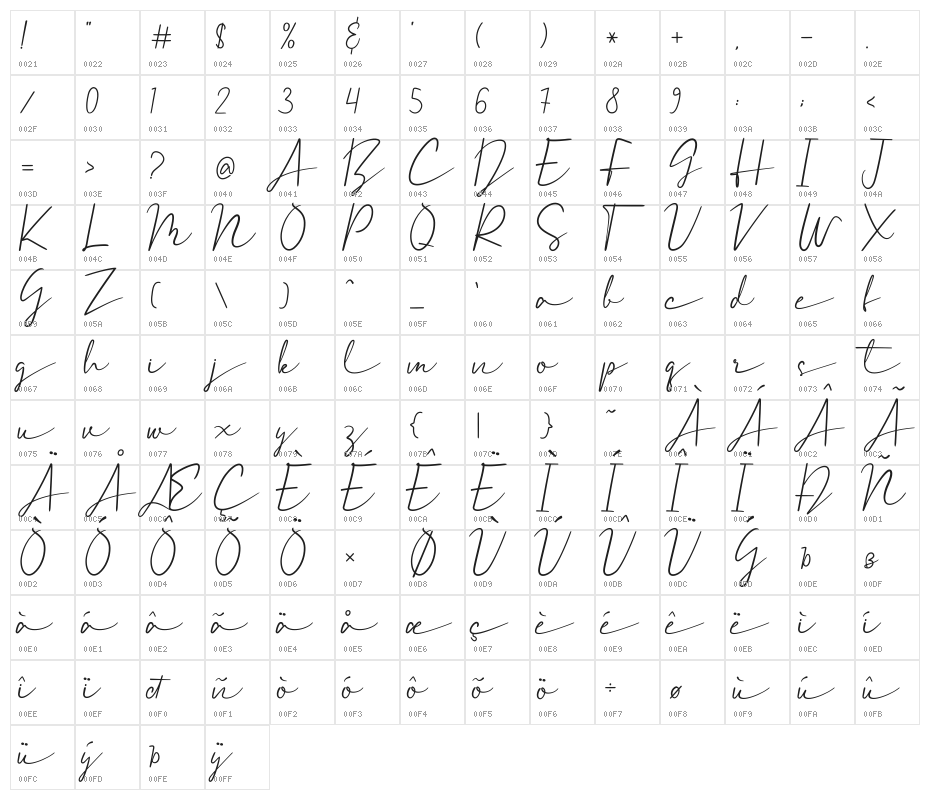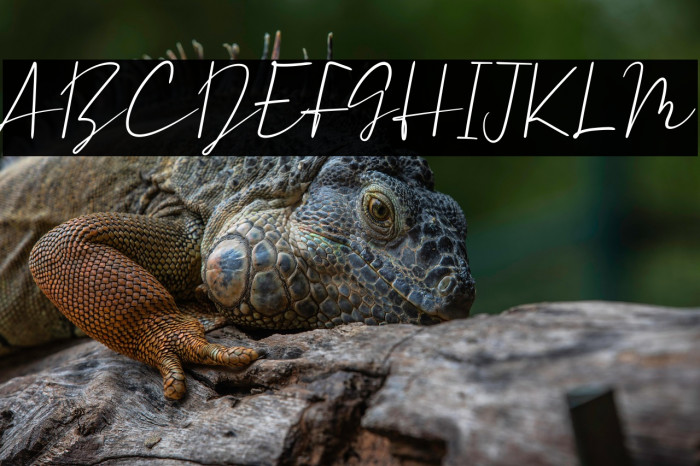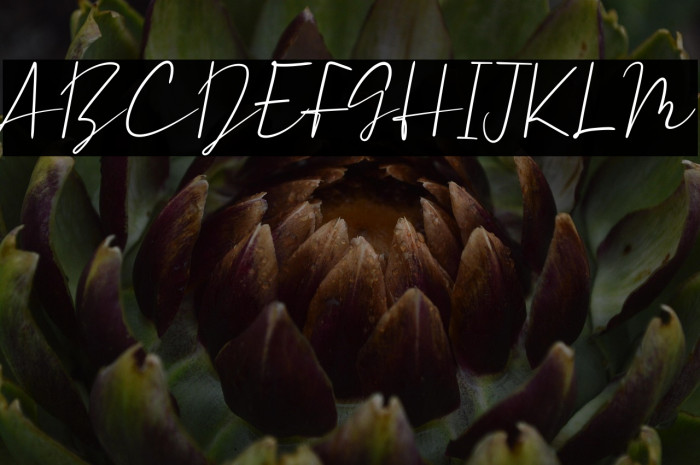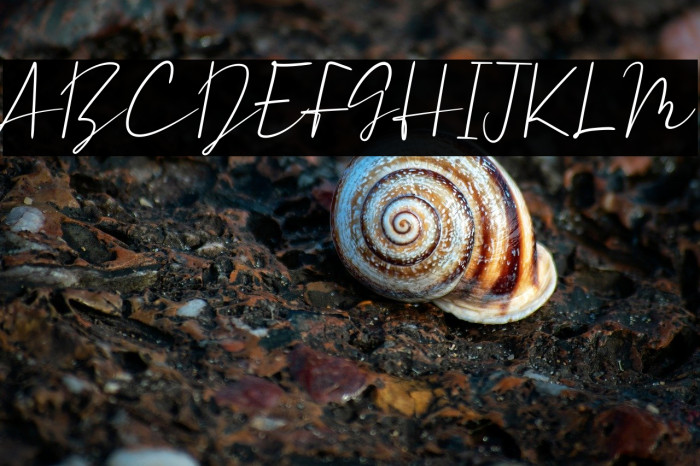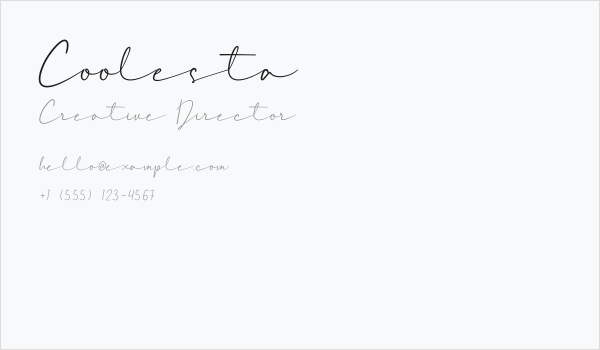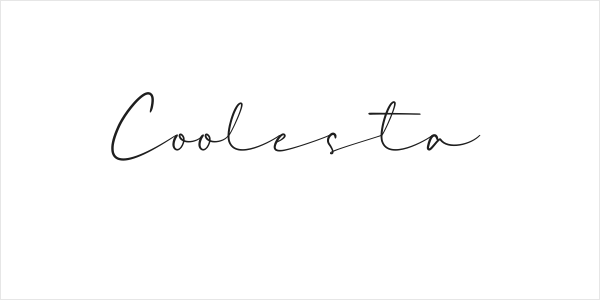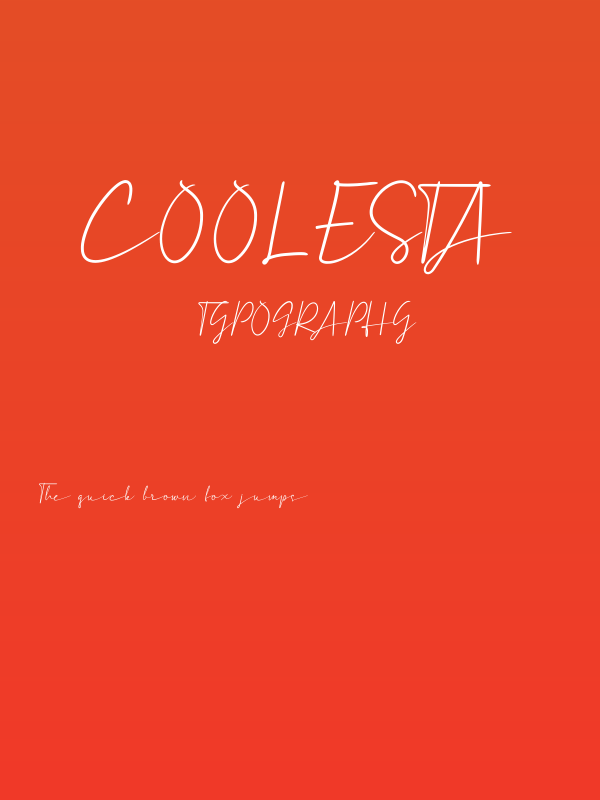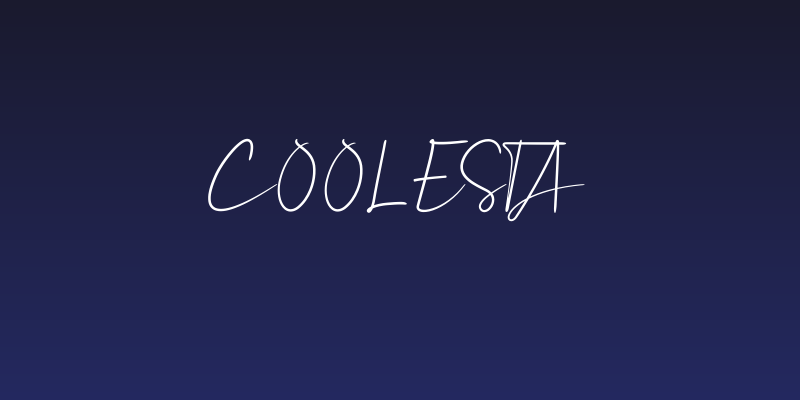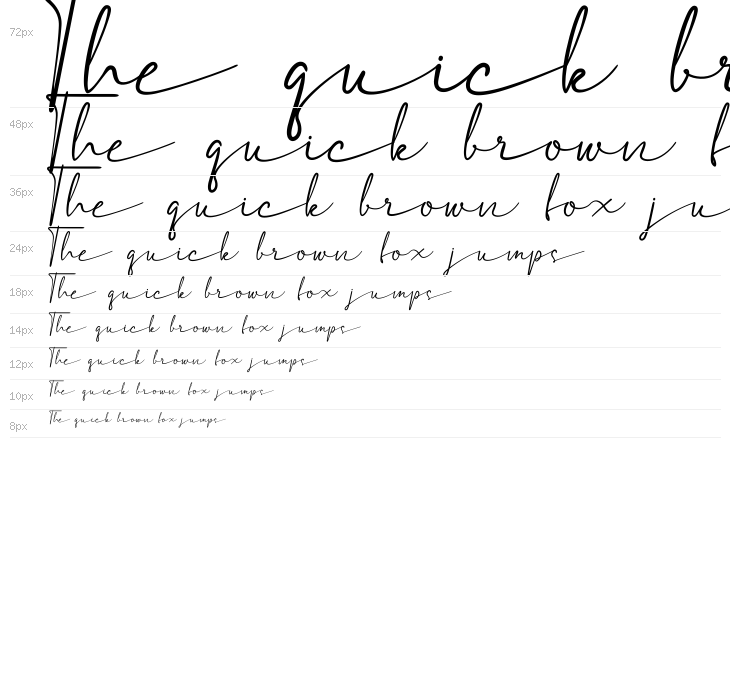
Coolesta Font
Coolesta Description
This font features a modern, handwritten style with a fluid and elegant appearance. The uppercase letters are tall and slender, with a slight slant that adds a dynamic feel. The lowercase letters maintain a consistent flow, enhancing the script-like quality. Numbers are clear and legible, with a slight curve that complements the overall aesthetic. Special characters are integrated seamlessly, maintaining the font's cohesive look. The strokes are thin, providing a delicate and refined touch, while the character spacing is normal, ensuring readability.
| Use Case | Logos, Invitations, Social Media |
| Proposed Projects | Ideal for wedding invitations, personal branding, social media graphics, and elegant stationery. |